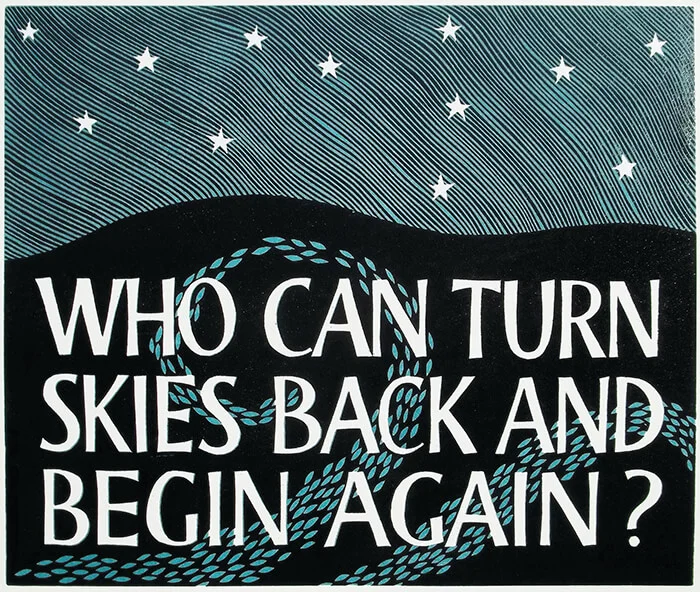
Who can turn skies back and begin again?
Artist: Harry Brockway
Title: Who can turn the skies back and begin again?
Medium: Woodcut print on paper
The print includes the stars and herring shoal, spoken of by Peter Grimes, [in the opera by Benjamin Britten, but the subject of the print is regret and resignation.
The artist, Harry Brockways says: ‘The line resonated with me as I think it may for many, as it reflects a feeling that there are times in our lives when we wish we had done things differently or taken another path. The poetry of the line comes from the skill of the librettist. I don’t think the line would work half as well if the words ‘Skies’ and ‘Back’ were placed the other way around.’
Text from the liberetto of Peter Grimes! by Benjamin Britten.  Words by Montagu Slater from George Crabbe’s poem.
About the artist
Harry Brockway studied sculpture at art school and then trained as a stone mason. He is interested in relief sculpture and likes to combine relief carving with lettering whenever possible. Beside his work as an architectural carver and maker of memorials he is a Wood Engraver, and has designed and engraved illustrations for many books. He finds the two disciplines complement each other very well. Literary ideas for illustrations often find their way into his sculpture and sculptural forms are what he favours in his engraving. He also teaches stone carving and wood engraving.